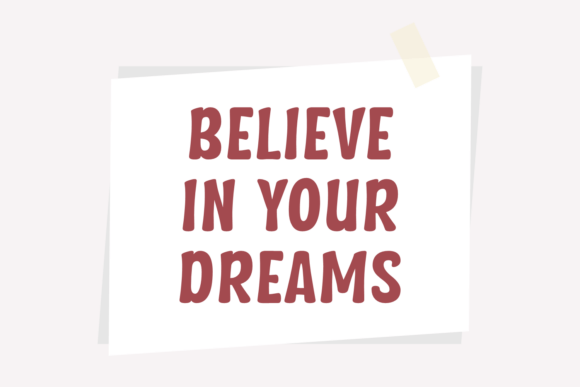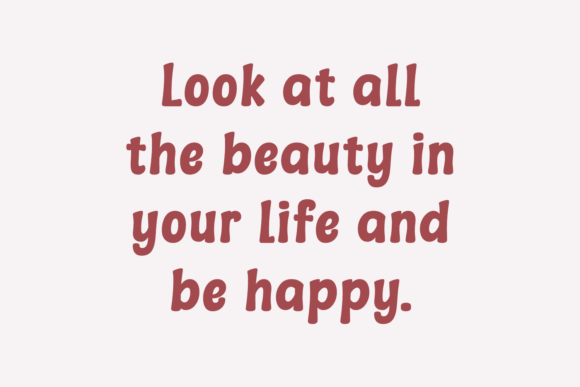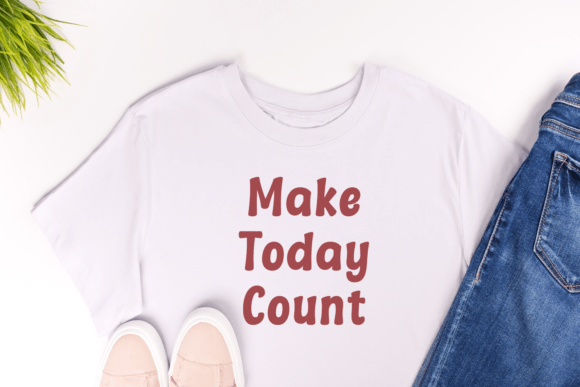
Introduction to Pink Mirror Font
Introducing Pink Mirror, a delightful display font endowed with a friendly appeal.
Its crafty and bold character adds an adorable and whimsical zest, making it a perfect choice for children-centric designs Whether it’s a unicorn-themed project or a girly signature, Pink Mirror captures the essence of fun-loving vibes.
Key Features of Pink Mirror Font
Why Choose Pink Mirror Font?
Pink Mirror Font offers exceptional quality and versatility, making it a valuable addition to your design toolkit. Whether you’re creating for personal projects or commercial use, Pink Mirror Font delivers professional results.